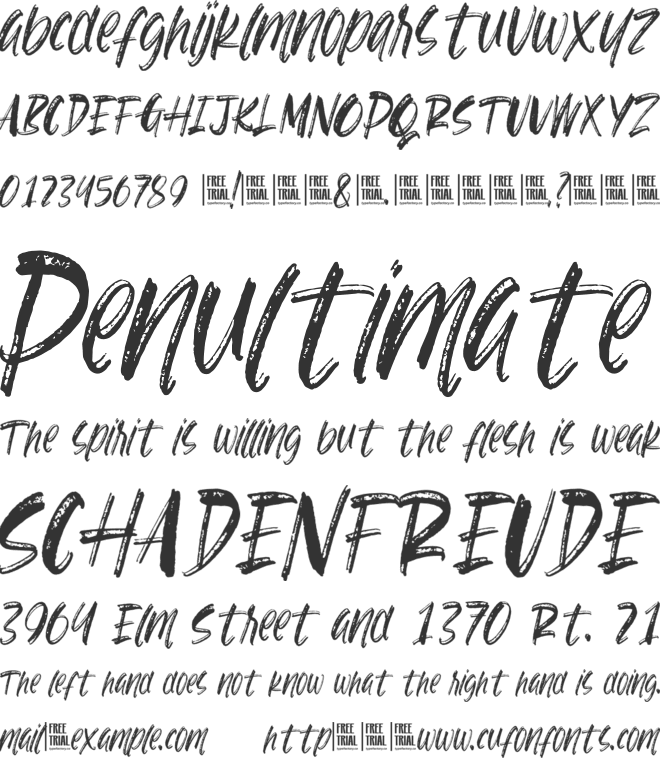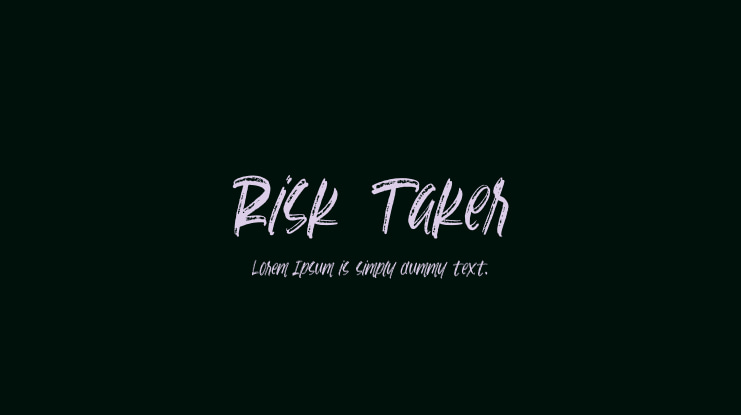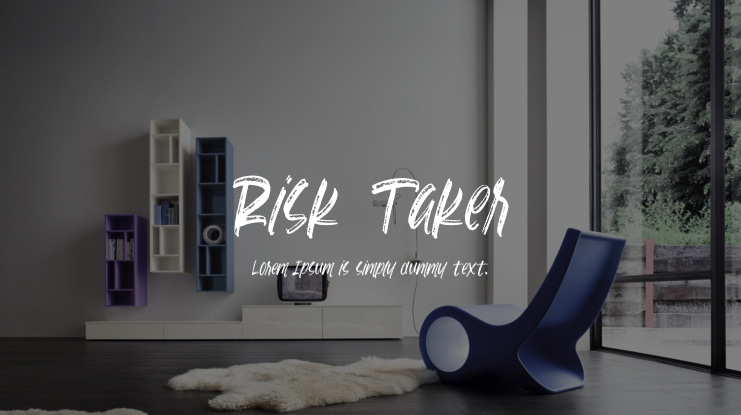
Risk Taker Font
Experience the thrill of adventure with "Risk Taker" - a bold and unconventional brush font that adds a daring touch to your designs!
With its fearless and textured letterforms, "Risk Taker" embodies audacity and creativity. Each character is meticulously crafted to exude authenticity and rugged charm, making it the perfect choice for dynamic logos, rebellious posters, innovative branding, and more.
Embrace the untamed spirit of "Risk Taker" as it transforms your projects with a dash of attitude. Whether you're designing daring album covers, urban street art, captivating headlines, or edgy social media graphics, this font will captivate your audience with its rough and fearless style.
Step into the world of risk and reward with "Risk Taker" and let your designs make a bold statement!